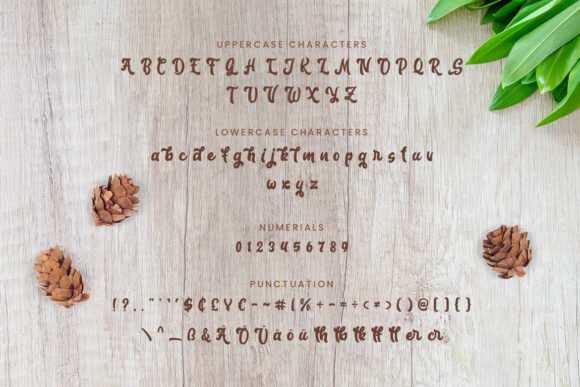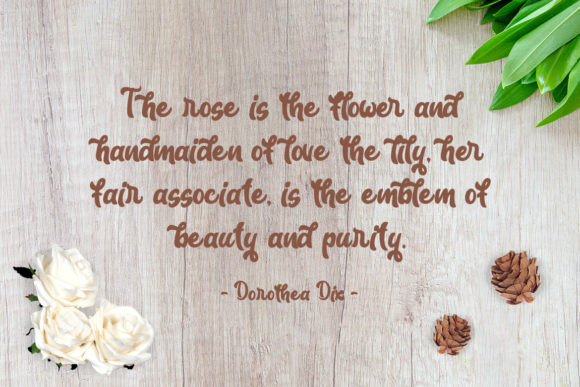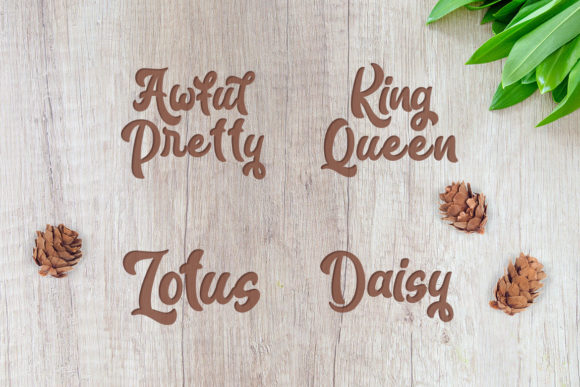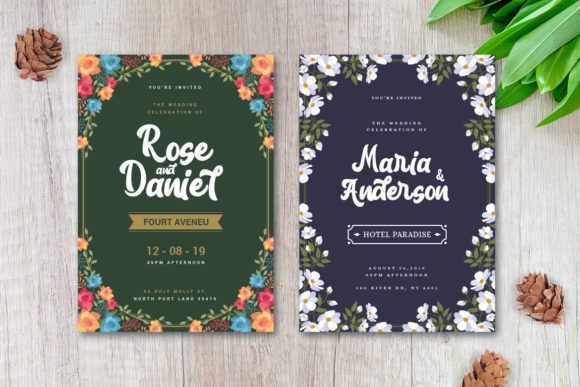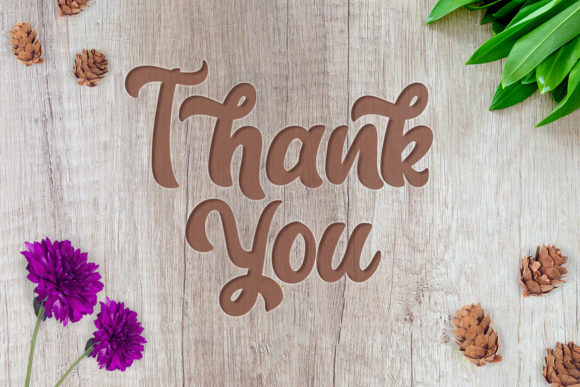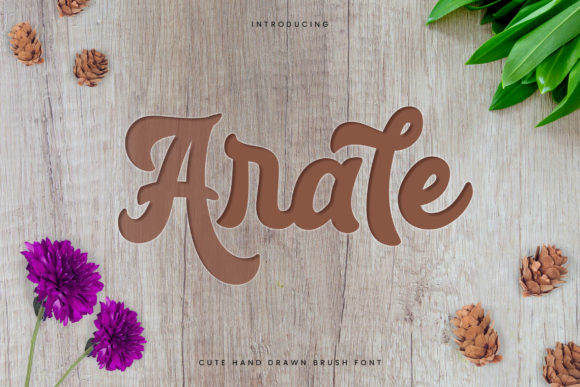
Discover the Elegance of Arale Font: A Timeless Choice for Designers and Crafters
Are you on the hunt for a font that exudes elegance, sophistication, and a touch of timeless charm? Look no further than the Arale Font. This thick lettered and flowing handwritten font is described by an elegant touch, making it perfect for your favorite projects. With its incredibly distinct and timeless style, Arale Font is sure to fall its way into your heart, enabling you to create spectacular designs that stand out from the crowd.
What Makes Arale Font So Special?
Arale Font boasts a unique combination of thickness and fluidity, giving it a distinctive look that sets it apart from other fonts. Its elegant touch is evident in every curve and line, making it an excellent choice for designers and crafters who want to add a touch of sophistication to their work. Whether you’re creating a logo, a poster, or a digital graphic, Arale Font is sure to make a lasting impression.
Key Features of Arale Font
- Thick Lettered: Arale Font features thick, bold letters that command attention and make a statement.
- Flowing Handwritten: The font’s flowing handwritten style gives it a natural, effortless look that’s perfect for creating elegant designs.
- Elegant Touch: Arale Font’s elegant touch is evident in every detail, making it an excellent choice for designers and crafters who want to add a touch of sophistication to their work.
- Timeless Style: With its classic look and feel, Arale Font is a timeless choice that’s sure to remain relevant for years to come.
Arale Font is versatile and can be used for a wide range of projects, including:
- Logos: Create a lasting impression with a logo that features Arale Font’s elegant and sophisticated style.
- Posters: Use Arale Font to create eye-catching posters that grab attention and make a statement.
- Digital Graphics: Add a touch of elegance to your digital graphics, including social media posts, blog headers, and more.
- Invitations: Create beautiful invitations that feature Arale Font’s flowing handwritten style.
- Branding: Use Arale Font to create a consistent brand image that exudes elegance and sophistication.
Why Choose Arale Font?
With so many fonts to choose from, why choose Arale Font? Here are just a few reasons:
- Unique Style: Arale Font’s unique style sets it apart from other fonts, making it an excellent choice for designers and crafters who want to create something truly special.
- Elegant Touch: Arale Font’s elegant touch is sure to add a touch of sophistication to any design.
- Timeless Appeal: With its classic look and feel, Arale Font is a timeless choice that’s sure to remain relevant for years to come.
| Font Name | Arale Font |
| Author | naulicrea |
In conclusion, Arale Font is an excellent choice for designers and crafters who want to add a touch of elegance and sophistication to their work. With its unique style, elegant touch, and timeless appeal, Arale Font is sure to fall its way into your heart. Whether you’re creating a logo, a poster, or a digital graphic, Arale Font is the perfect choice for creating spectacular designs that stand out from the crowd.